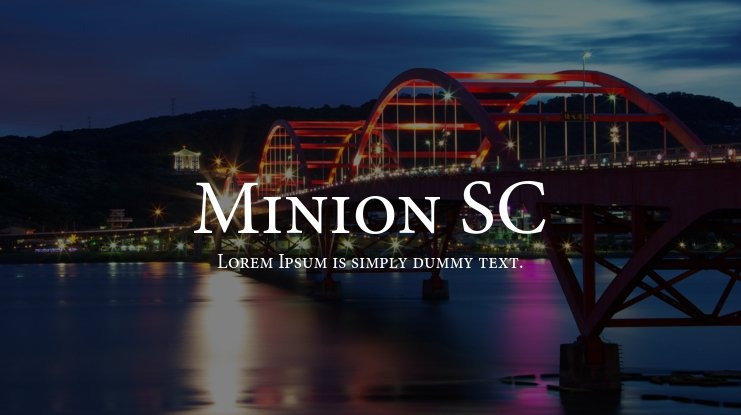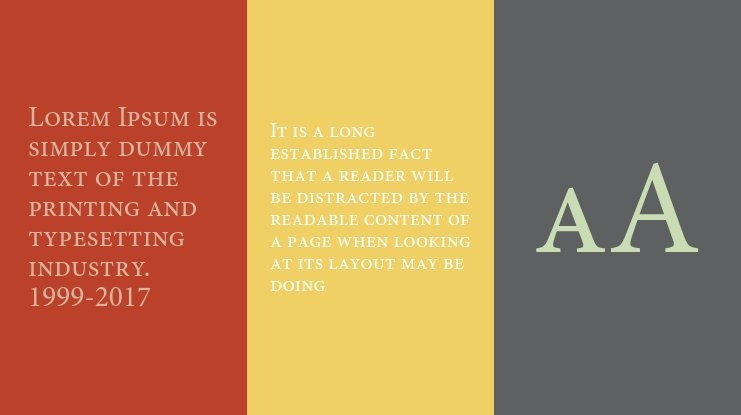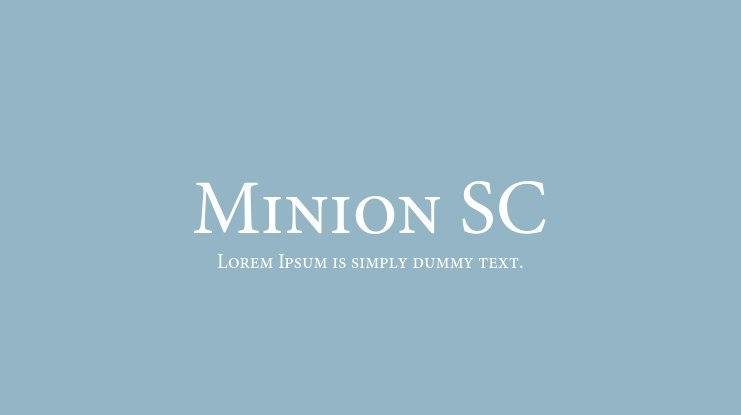
Minion SC Serif Font Free, It would be a perfect choice to design posters, affiches, logos, t-shirt and magazine prints, eye-pleasing typographic designs and more.
Minion SC Font